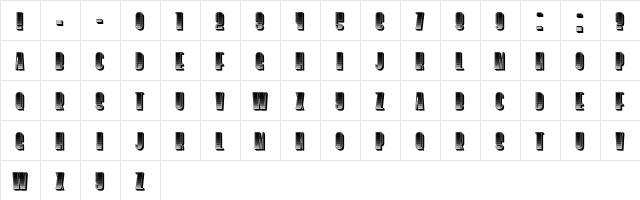
Scale Regular
Design Context for Scale Typeface
Scale is a composed and adaptable typeface that performs quietly and consistently across a wide range of design contexts.